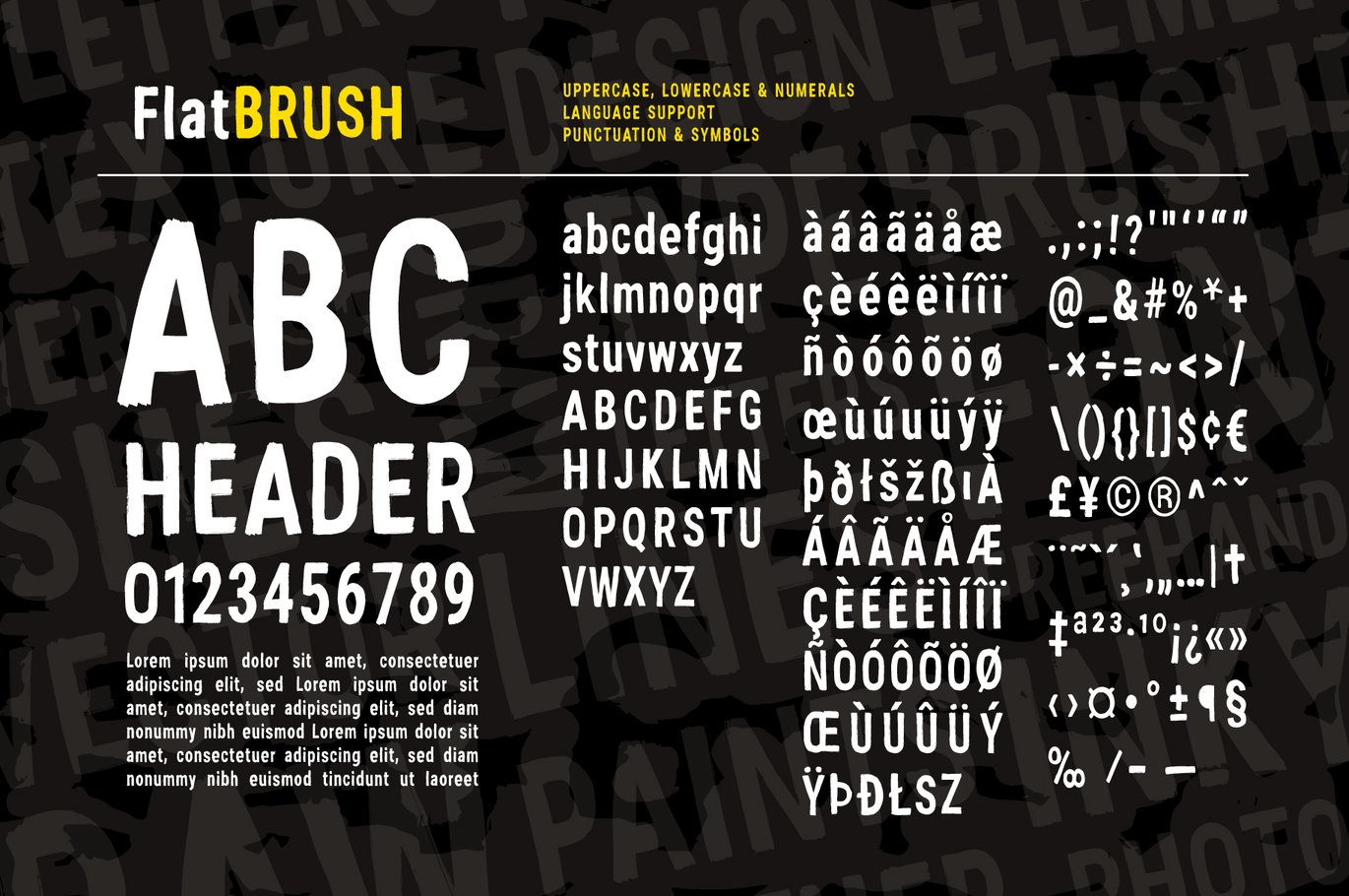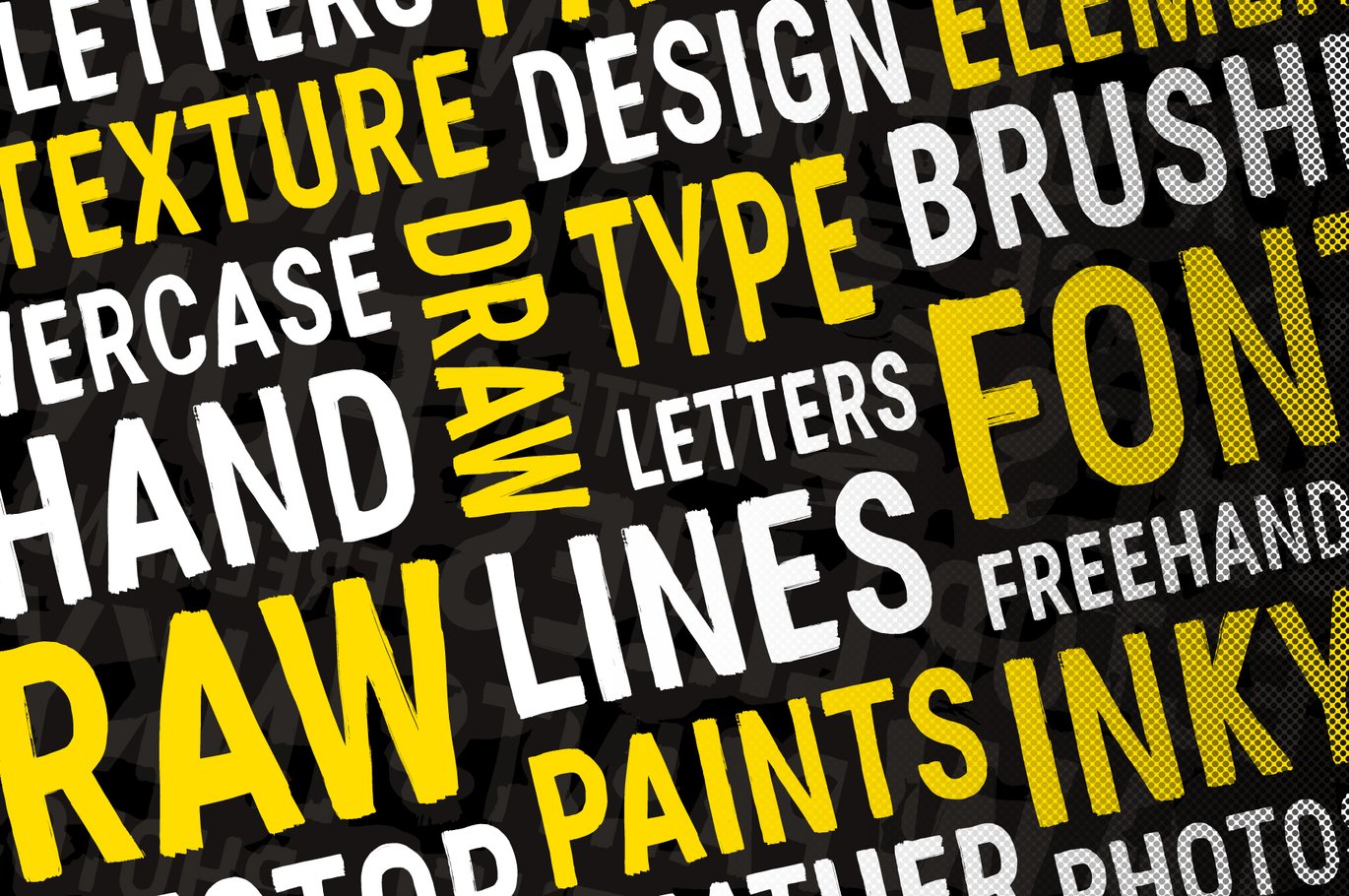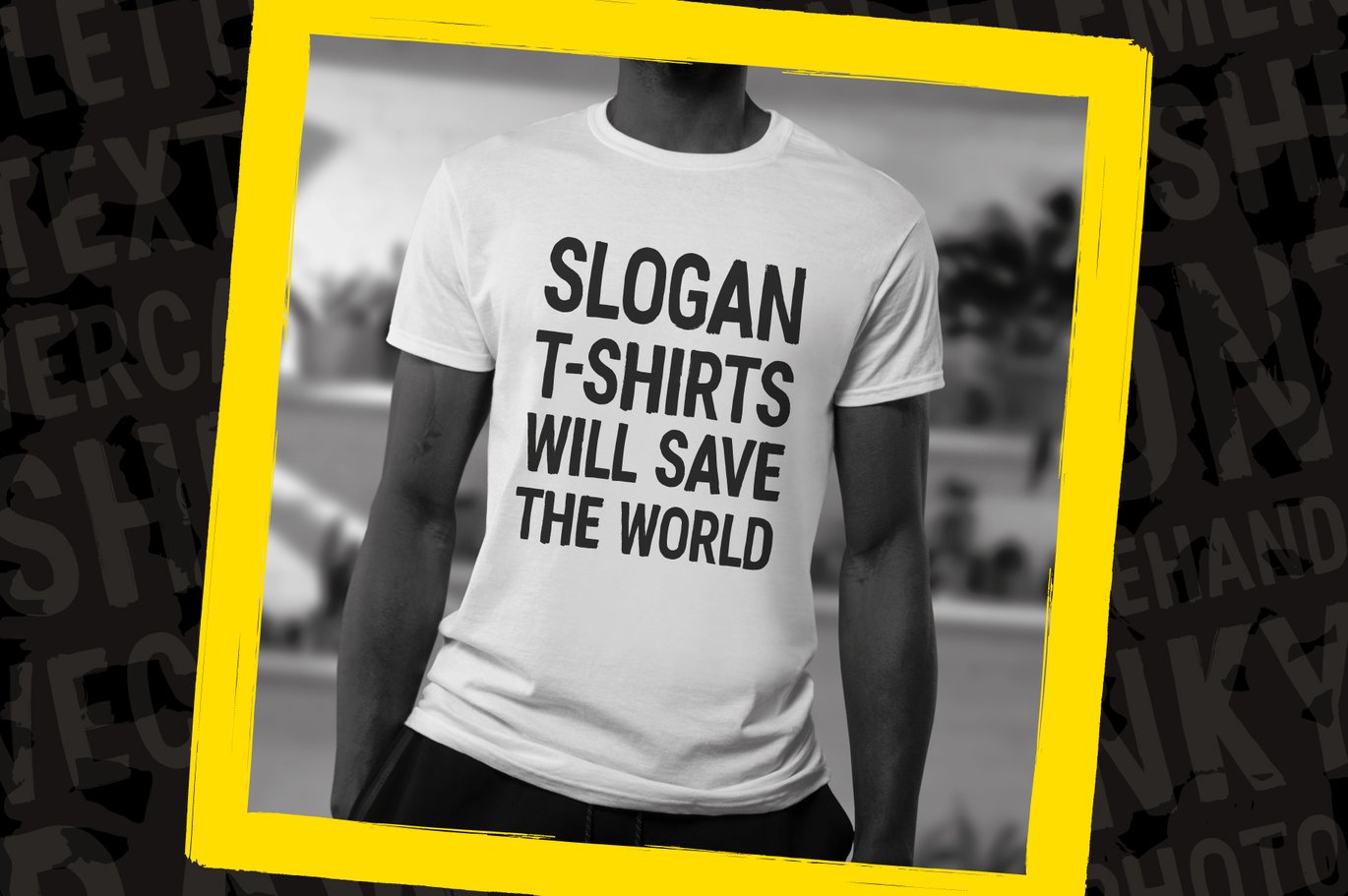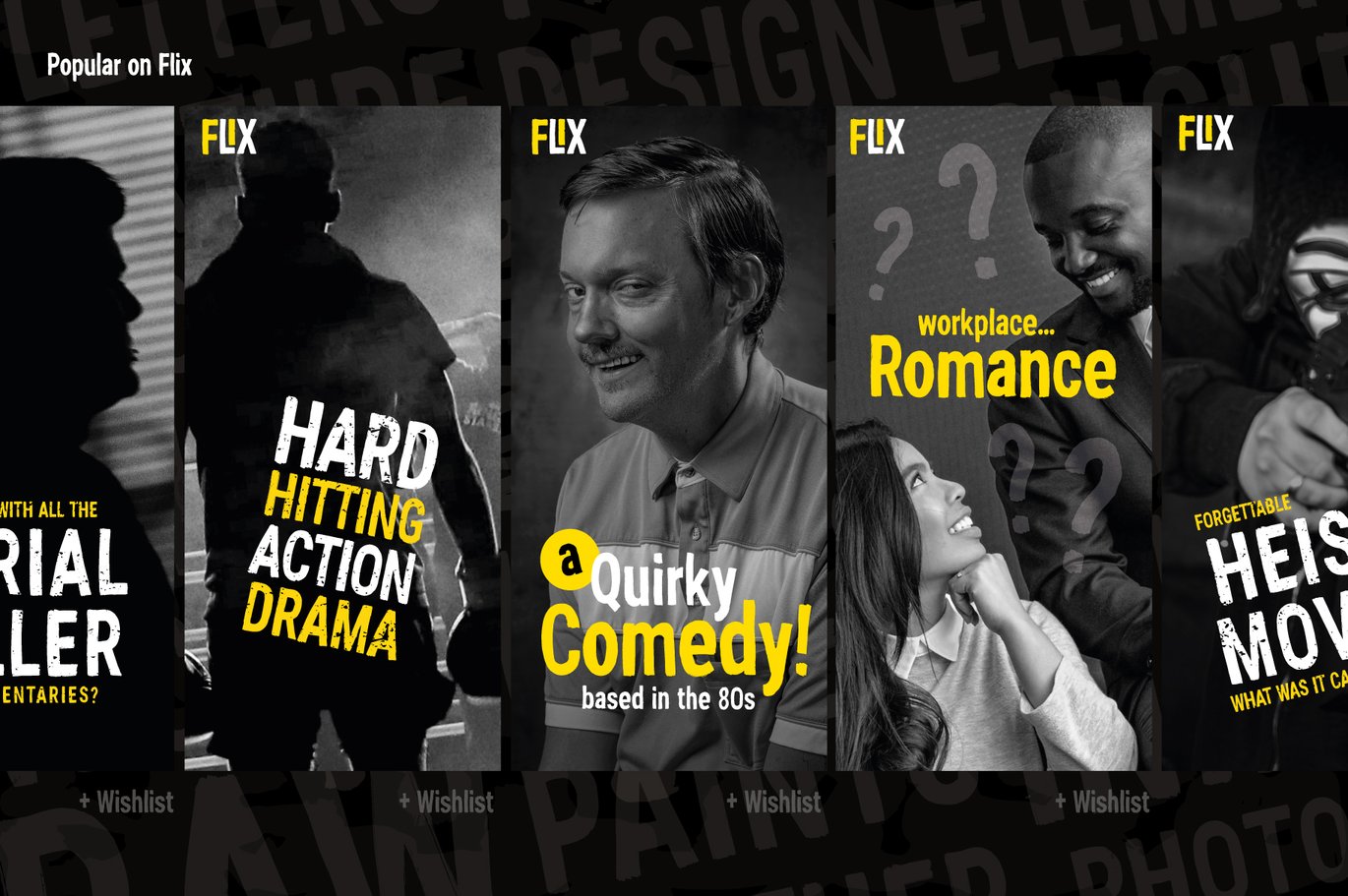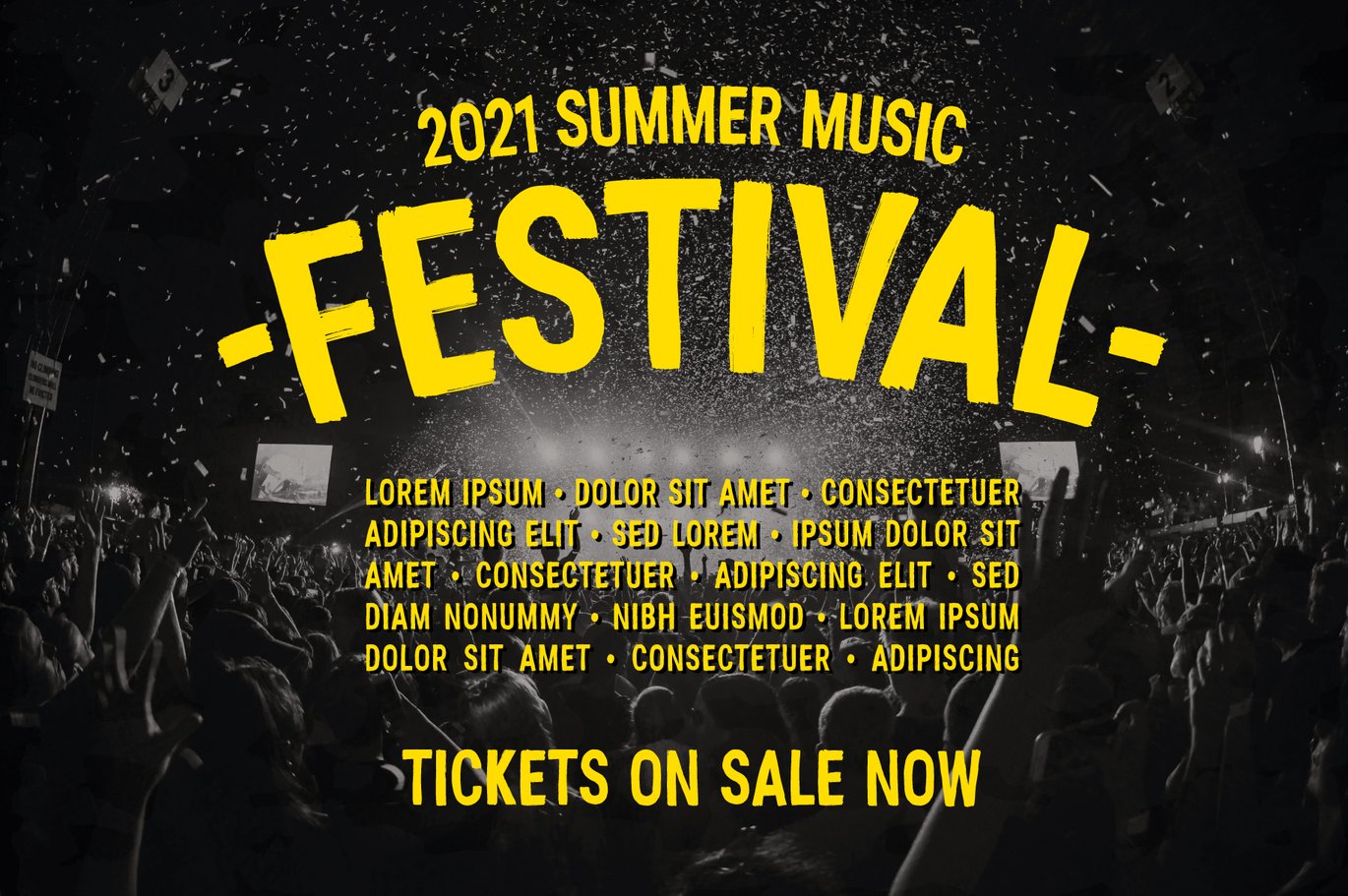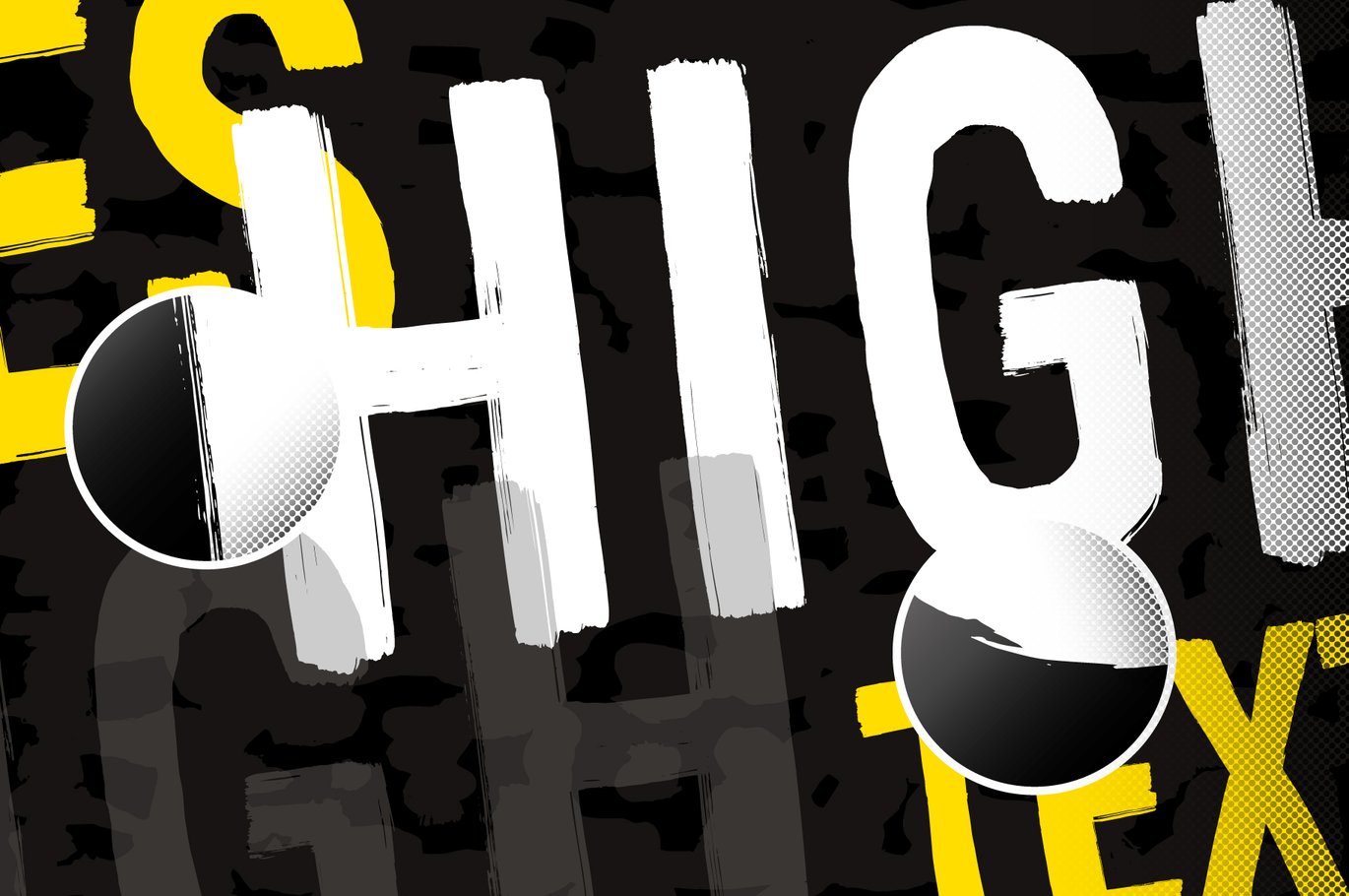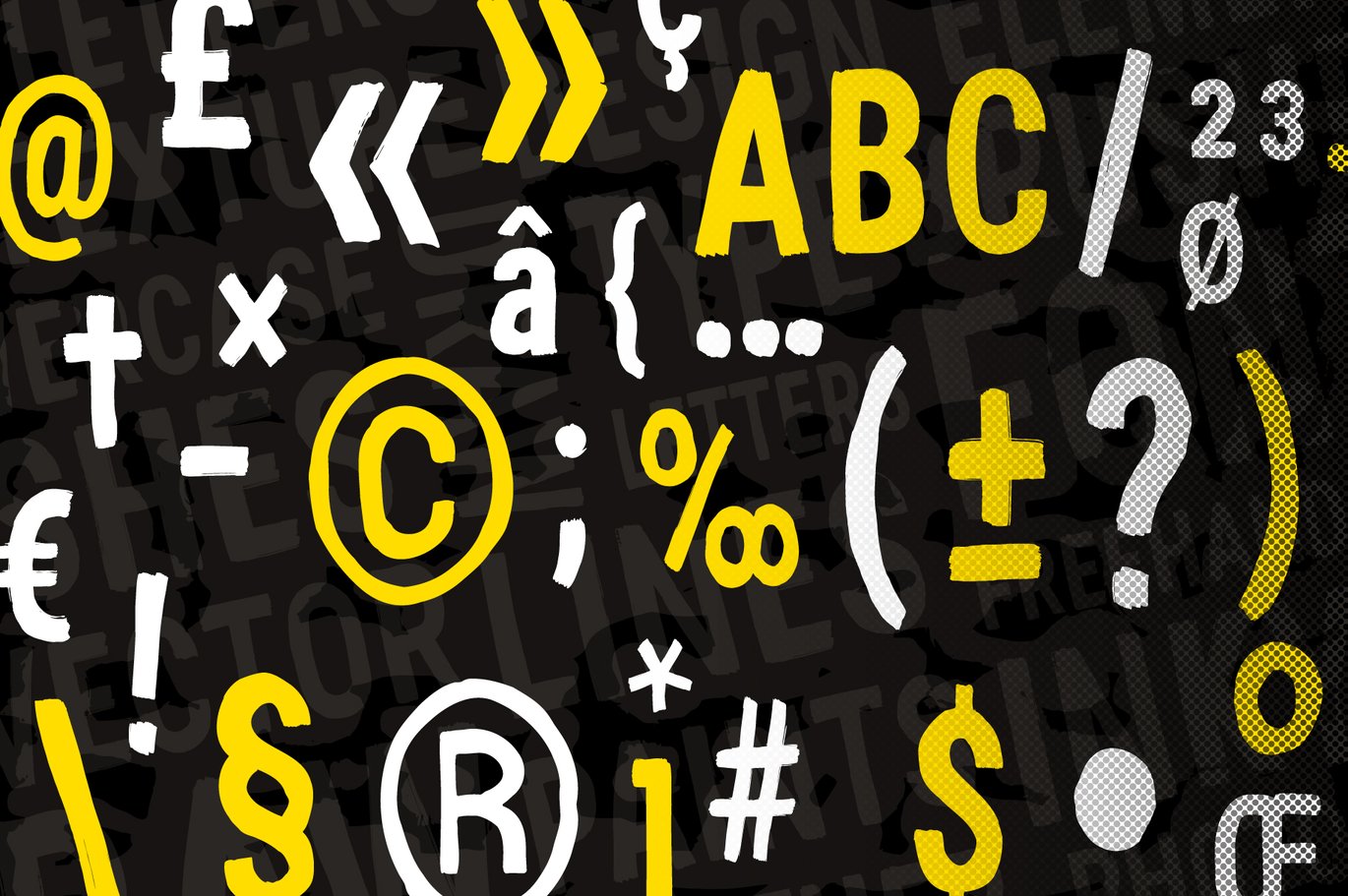
Flat Brush Font
**The combination of heavy black ink and a well used sable brush resulted in this versatile type, readable in sizes large and small, yet with a distinctly hand-made and textured feel. Great for posters, headers, titles and more. **
Features uppercase and lowercase letters with language support, numerals, punctuation and symbols.